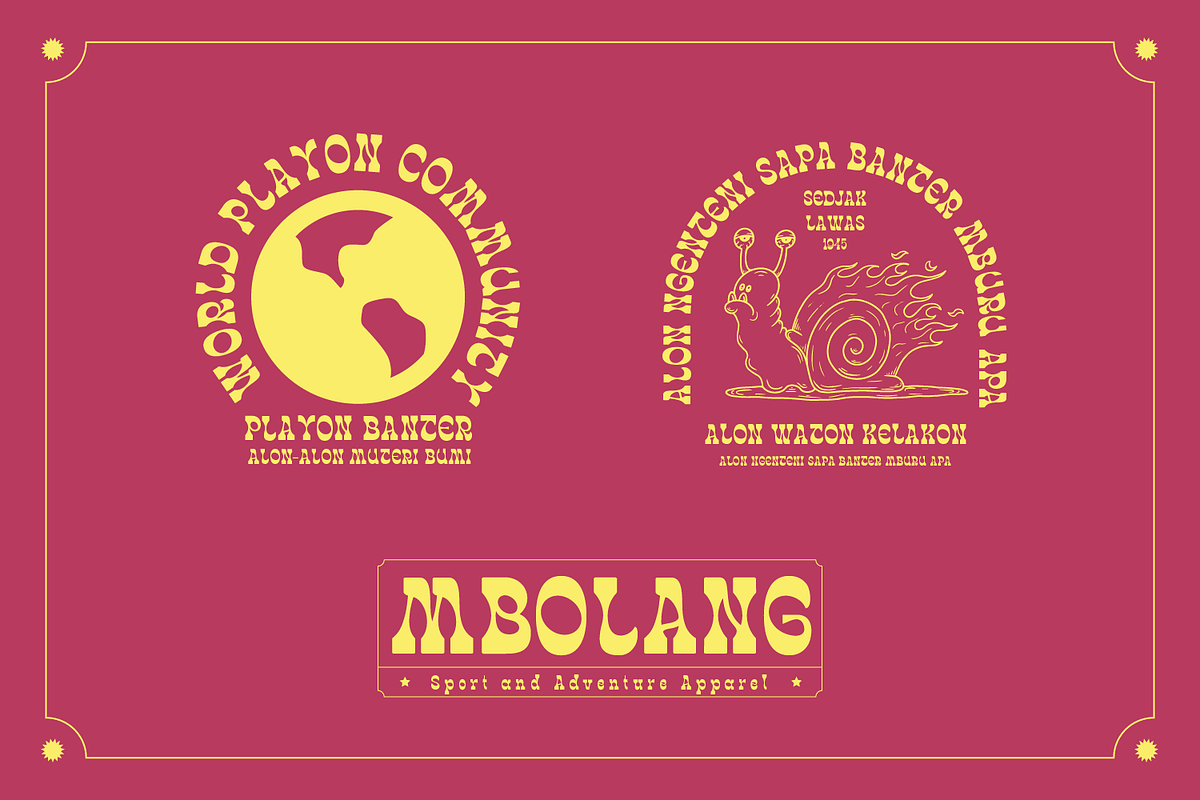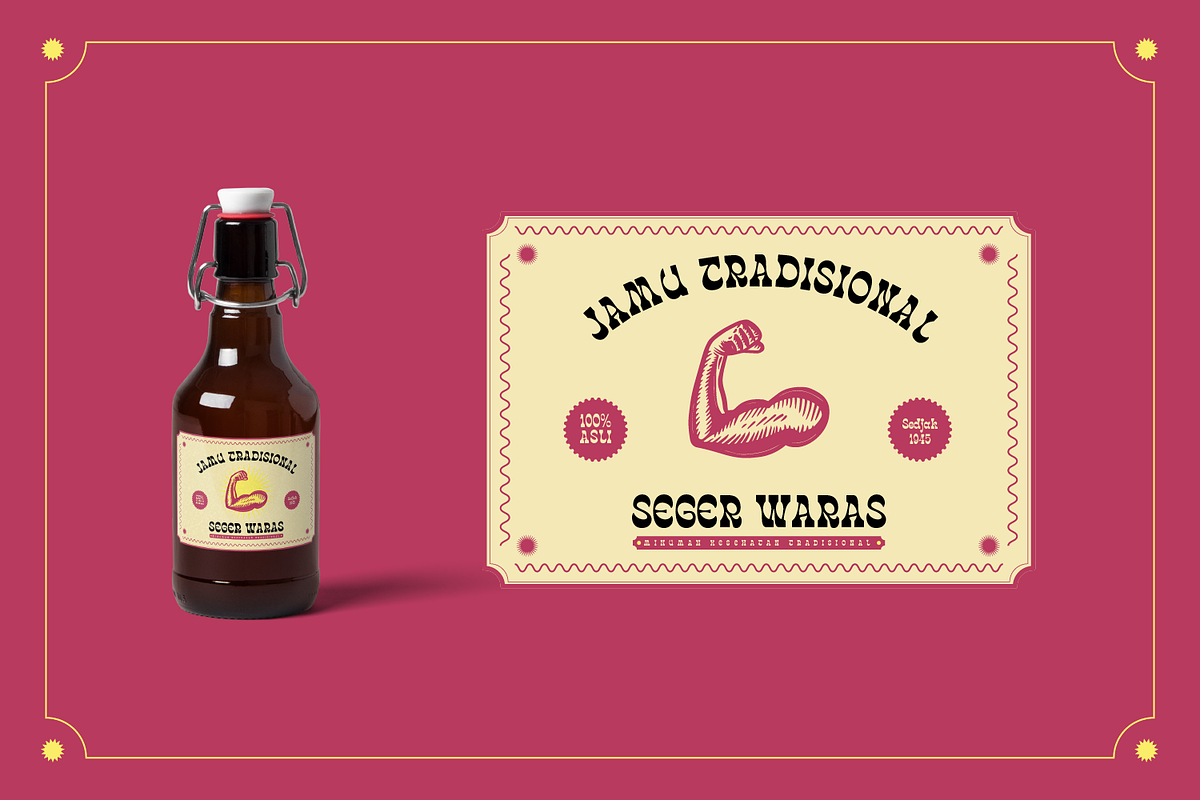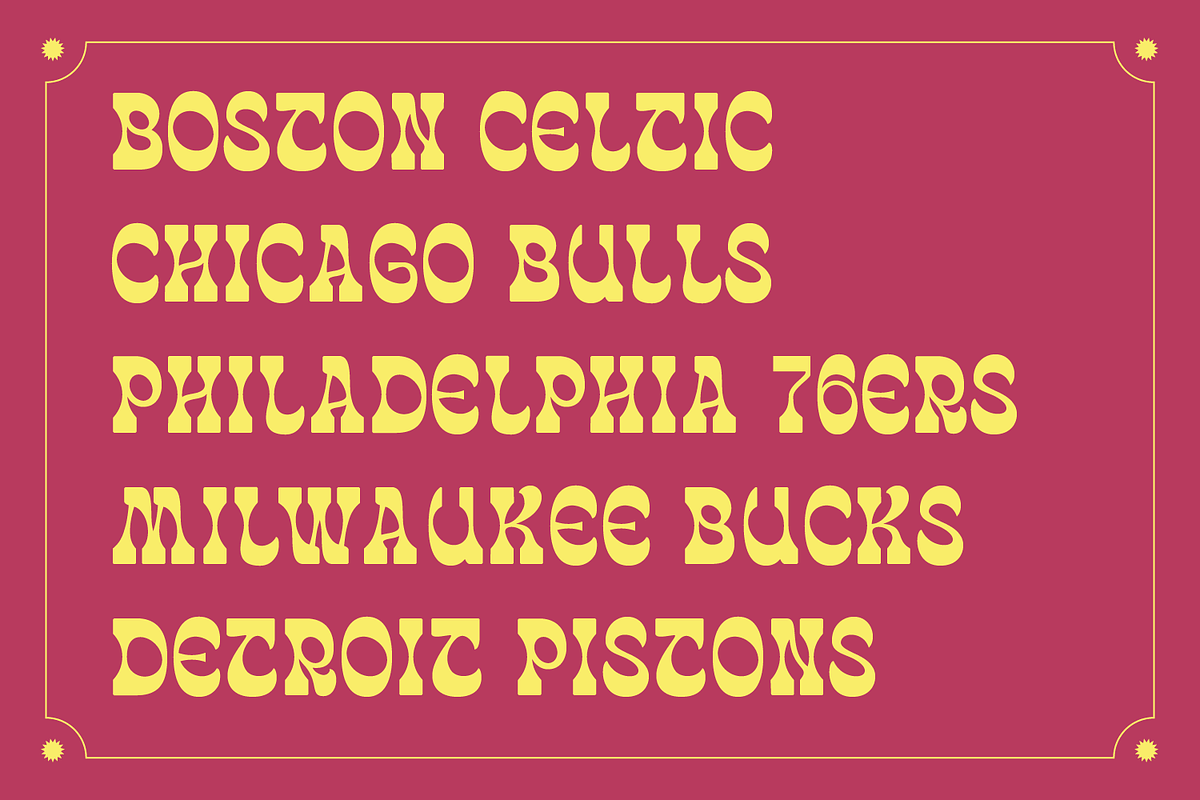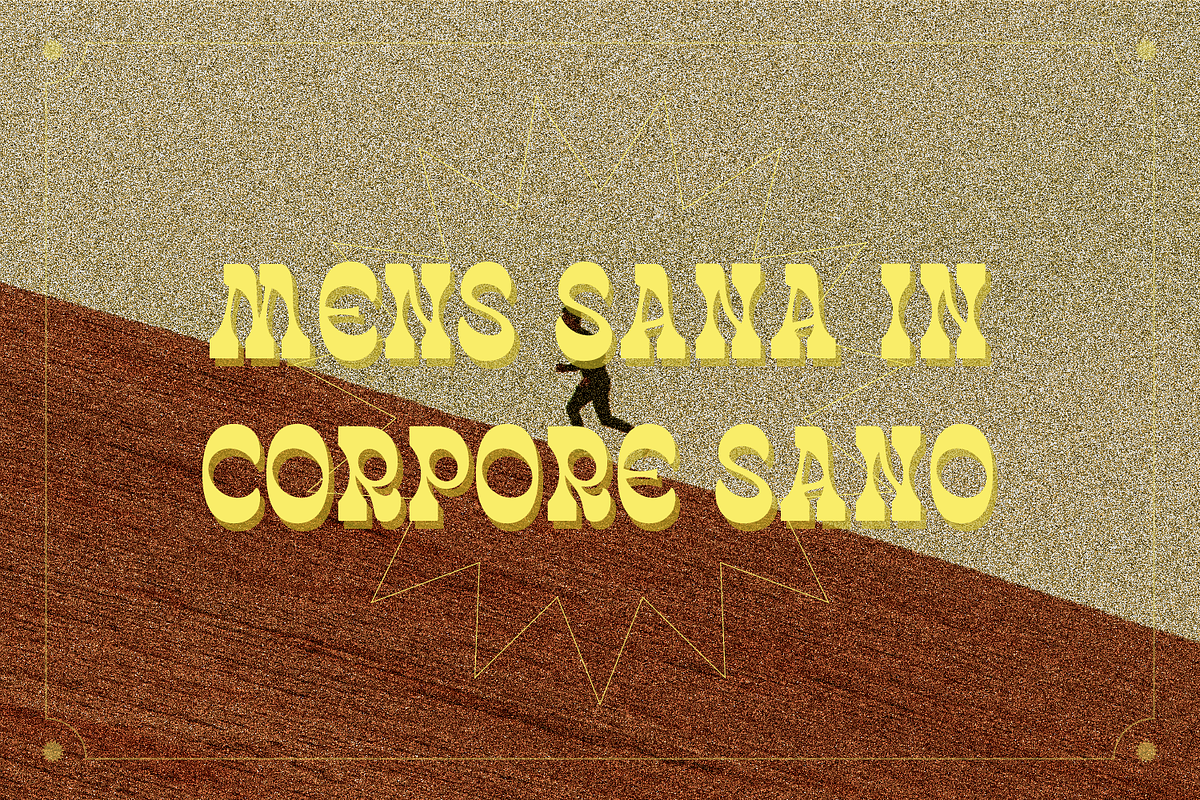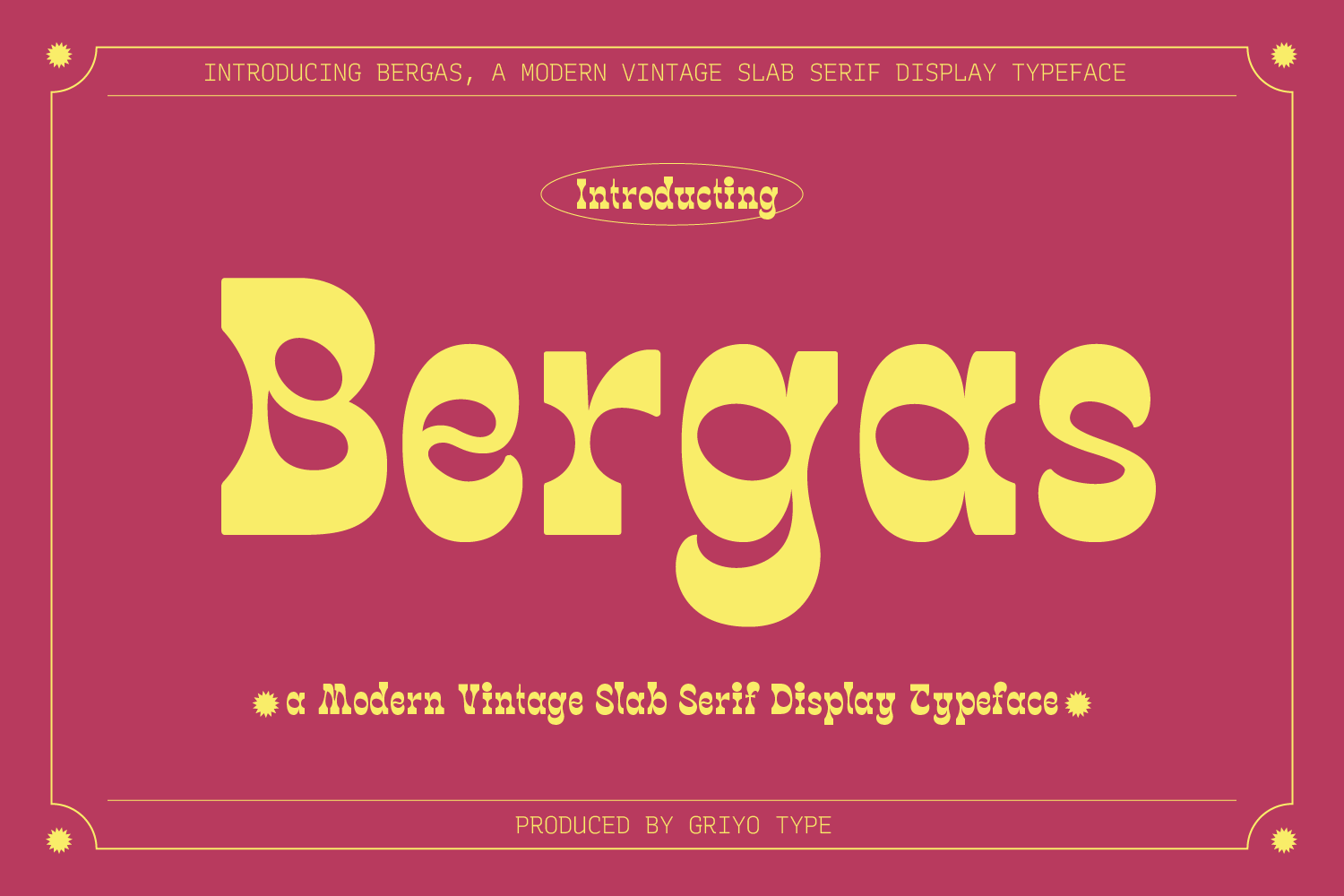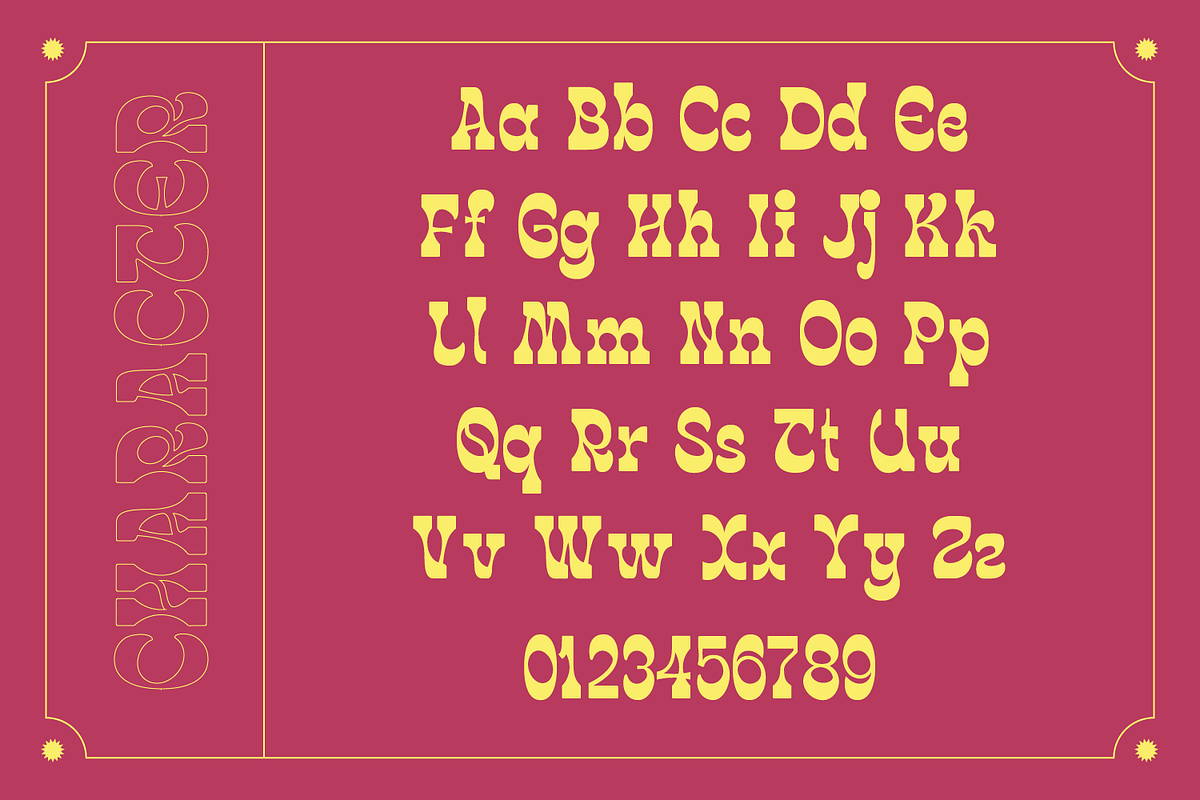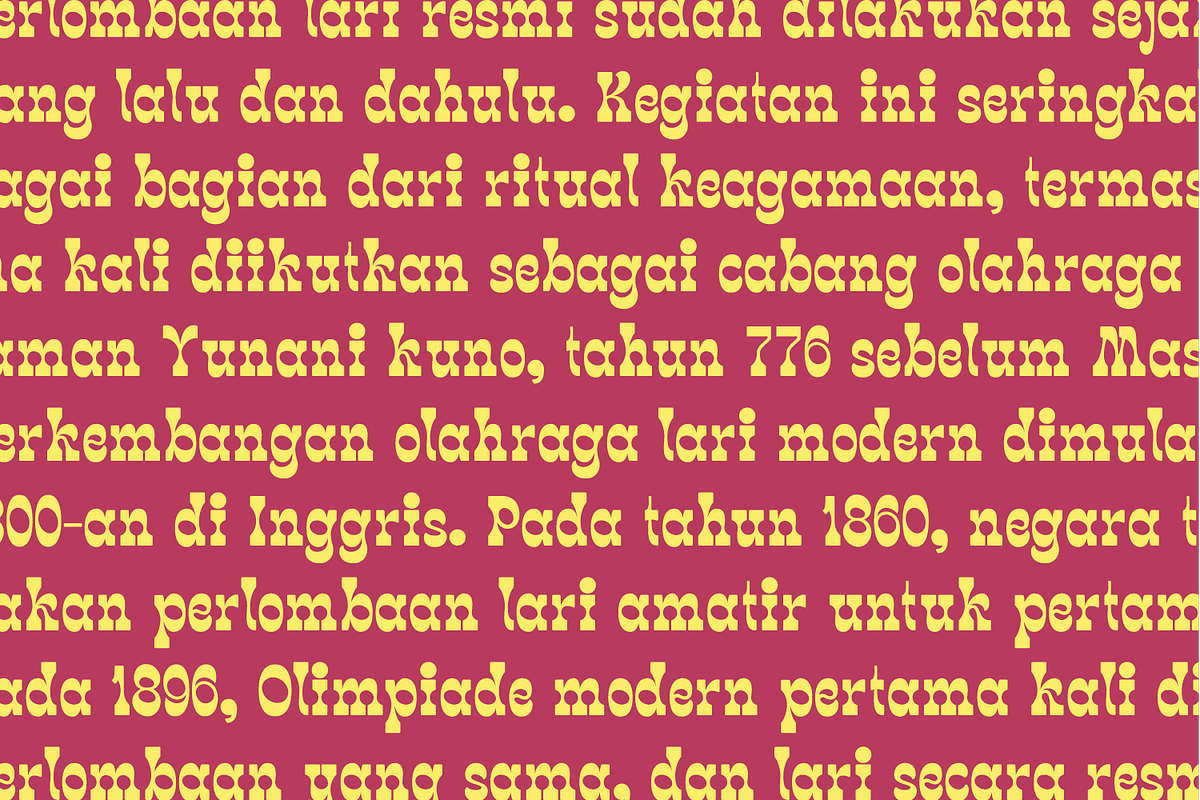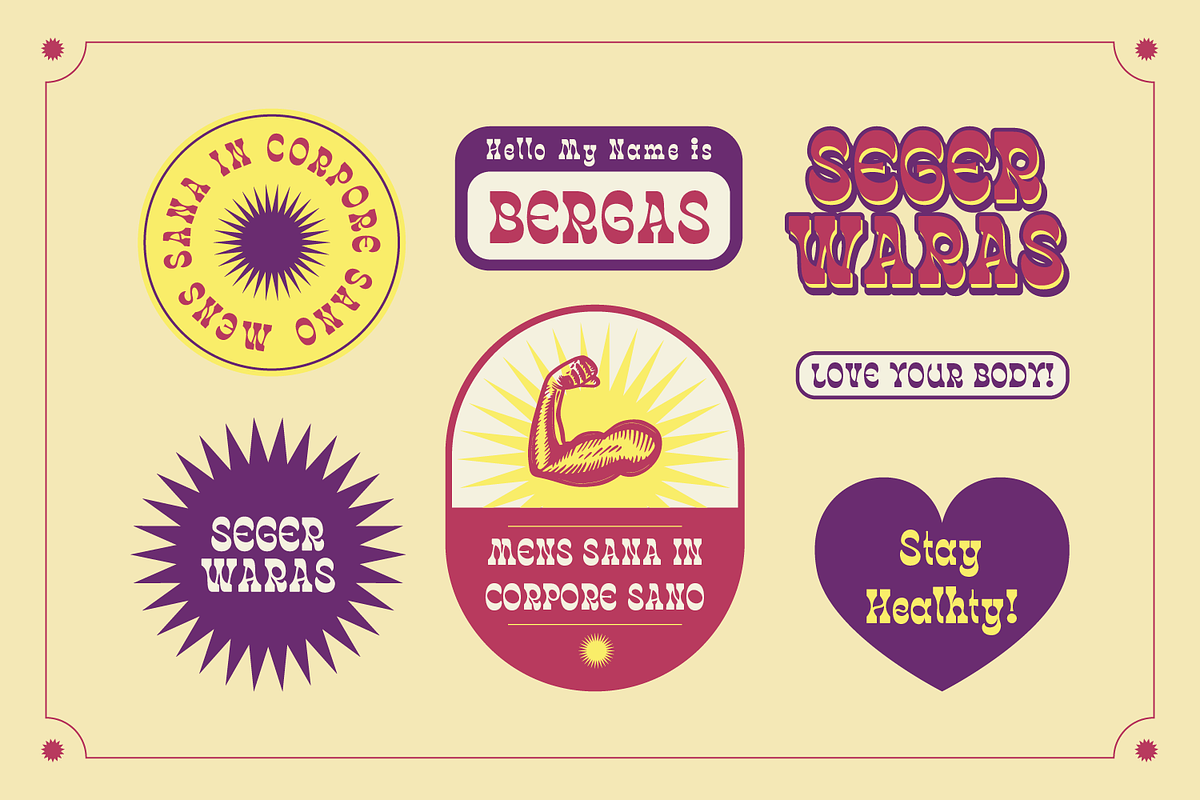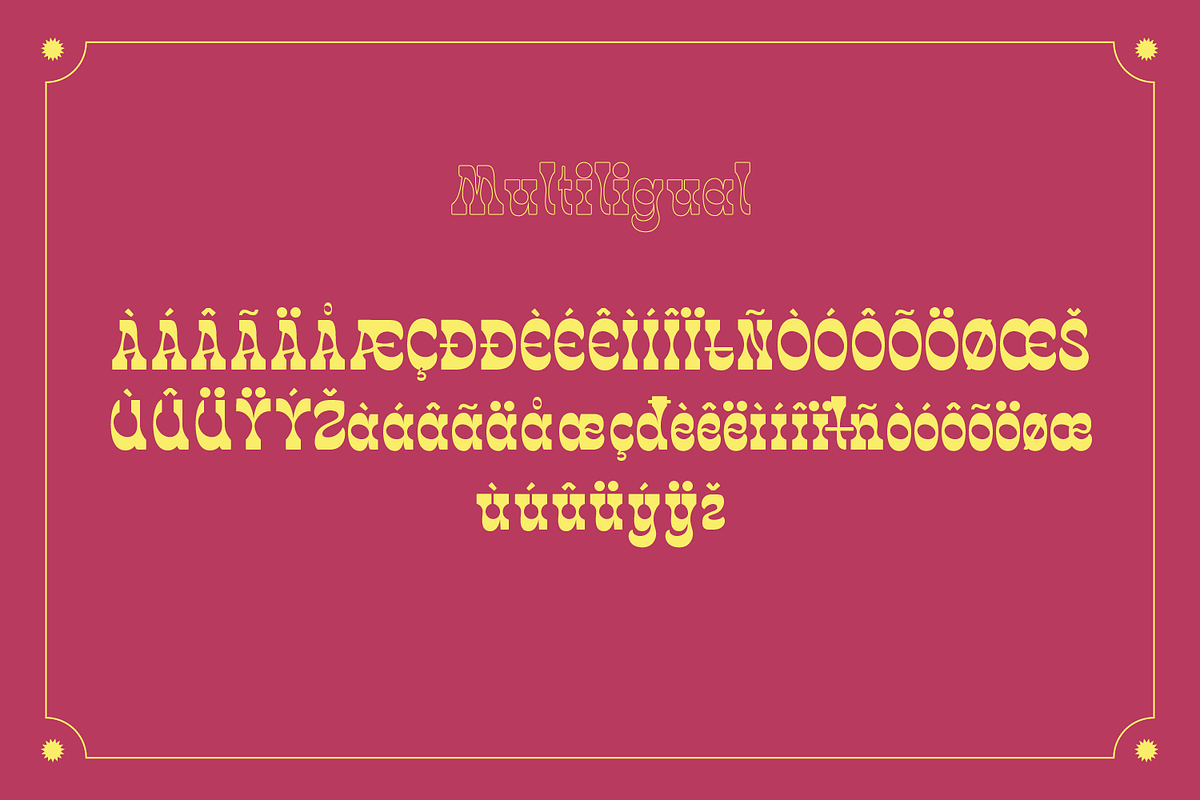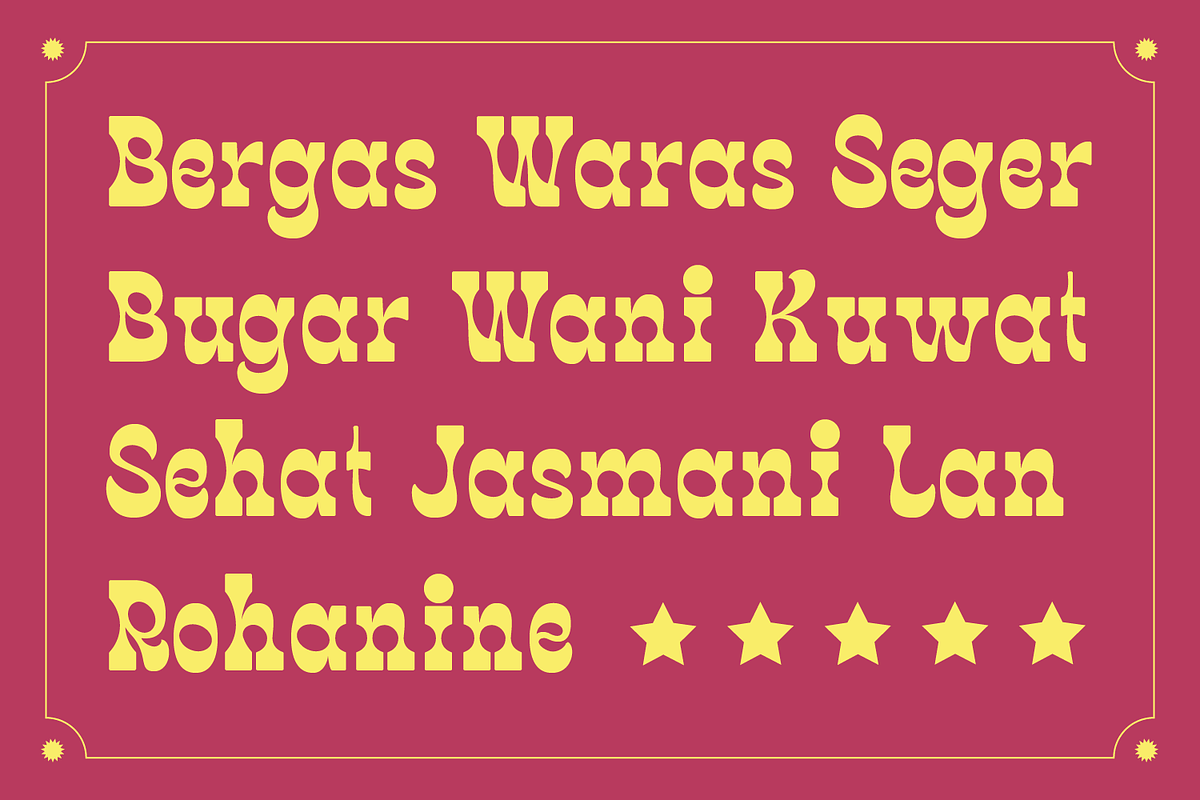
Bergas - Display Typeface
Introducing Bergas a modern vintage slab serif display font. Bergas is a cool, whimsical and wavy display font. Whether you use it for cartoon related designs, children games or just any creation that requires a lovely touch, this font will be an amazing choice.